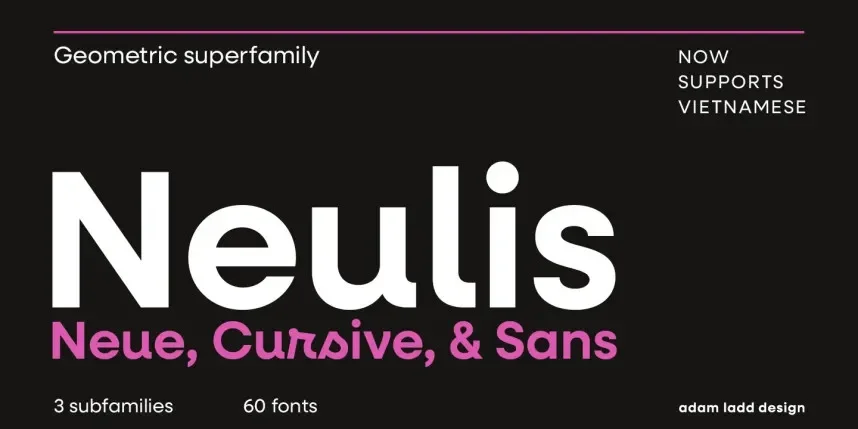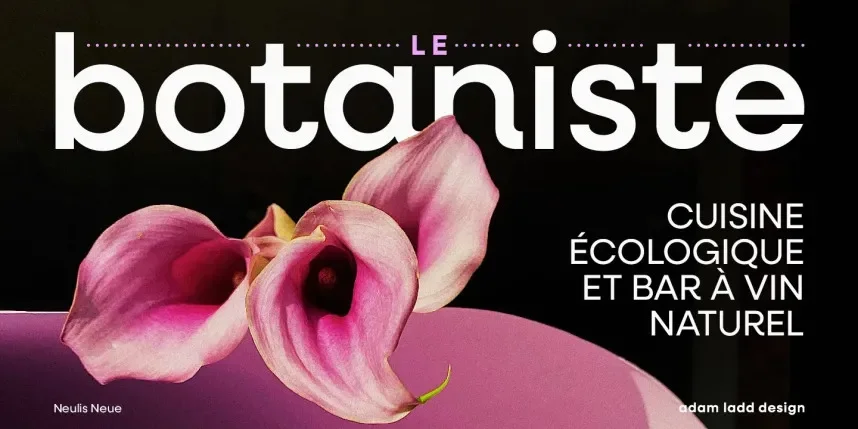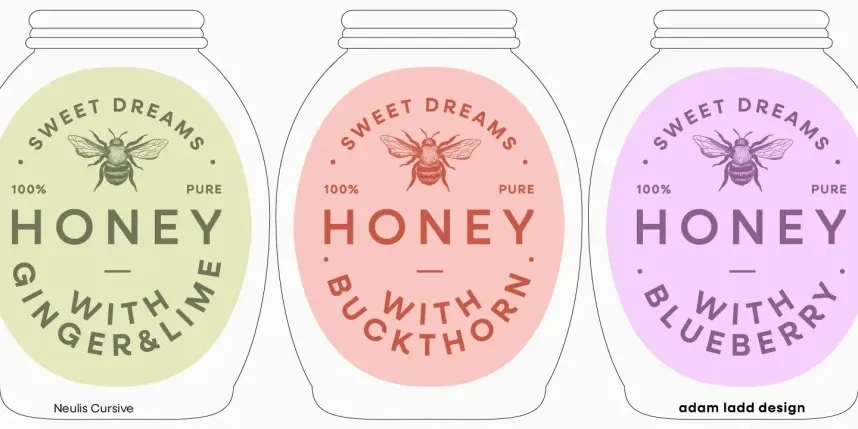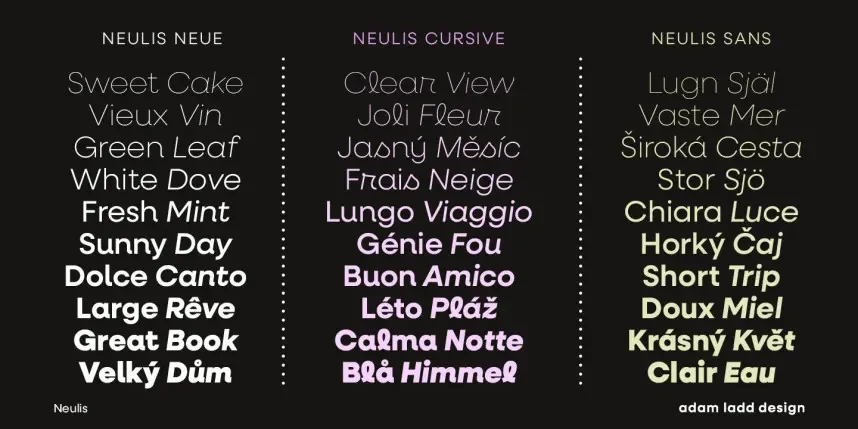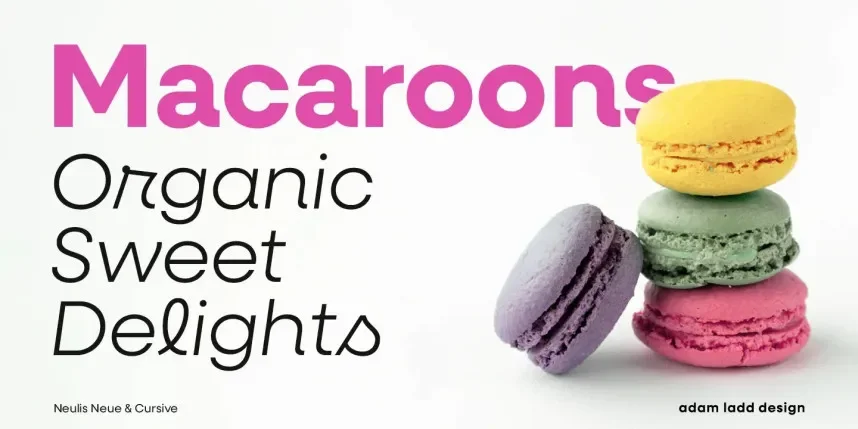
Neulis Font Family
Designed by Adam Ladd
Neulis Font Family addresses clarity in formal design, ensuring that serif styling does not hinder legibility in extended text or digital layouts.
Neulis is a serif typeface family with thin-to-medium stroke contrast, clean terminals, and stable letterforms. Designed for readability in both headings and body text.